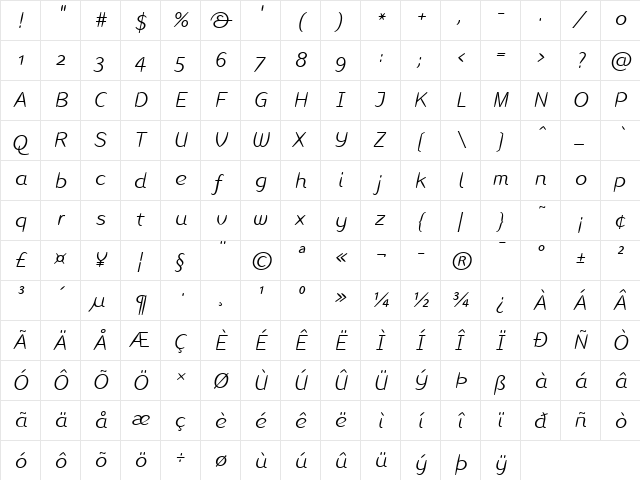
LinotypeInagur Light Light Italic Font Preview
Design Context for LinotypeInagur Light Typeface
LinotypeInagur Light takes a measured approach to typography — its balanced proportions and neutral character make it a reliable workhorse for both digital and print work. The slanted form adds forward momentum and visual energy. Its slender proportions lend an understated elegance to any composition.
Pro Tip: Use LinotypeInagur Light for emphasis, pull quotes, and subheadings where its slanted energy can add rhythm to the layout.